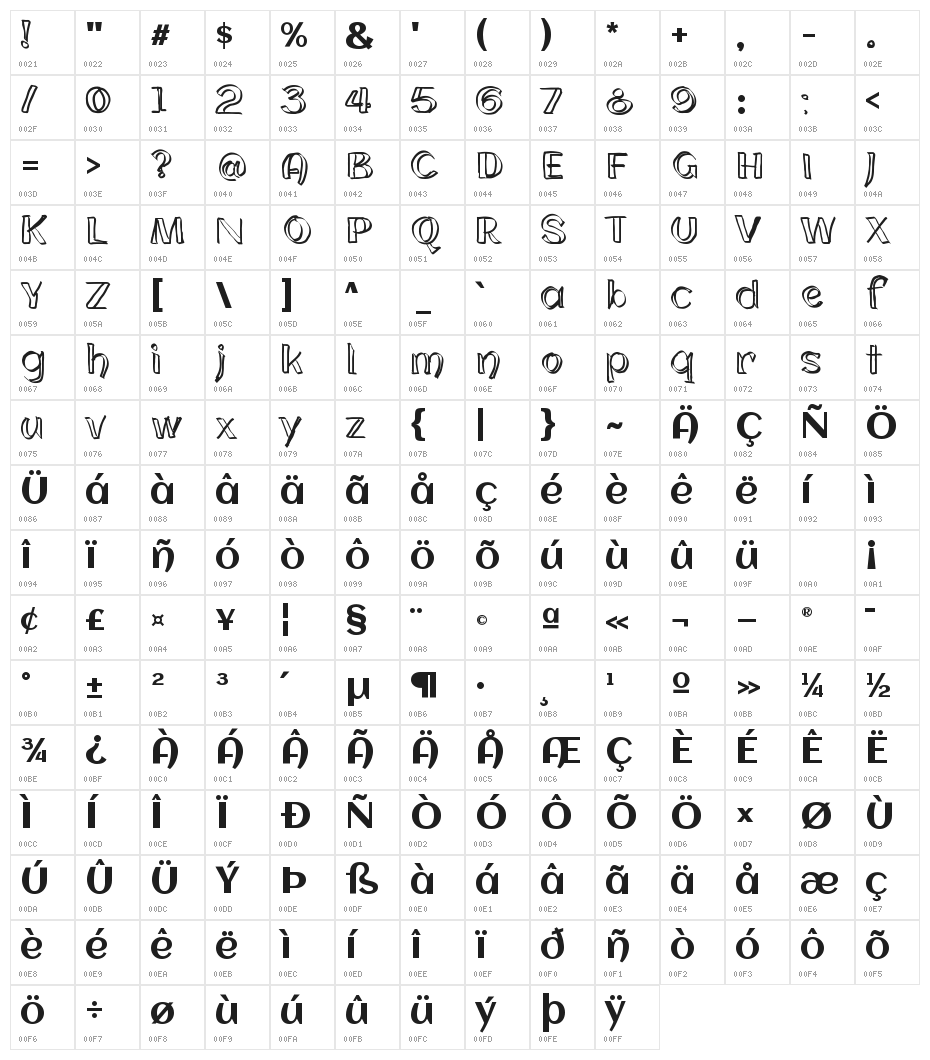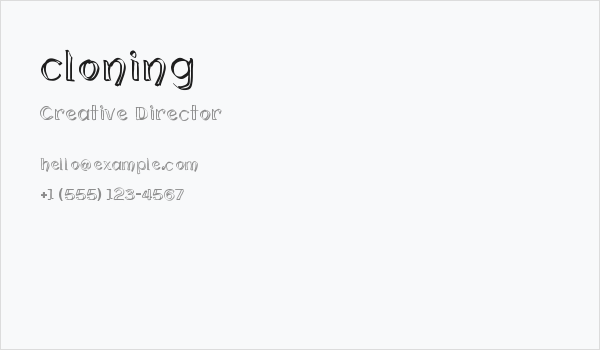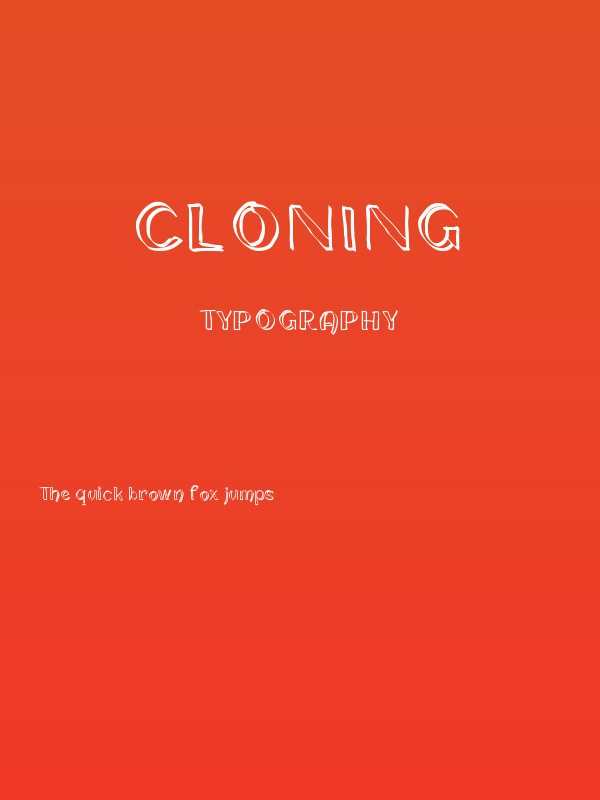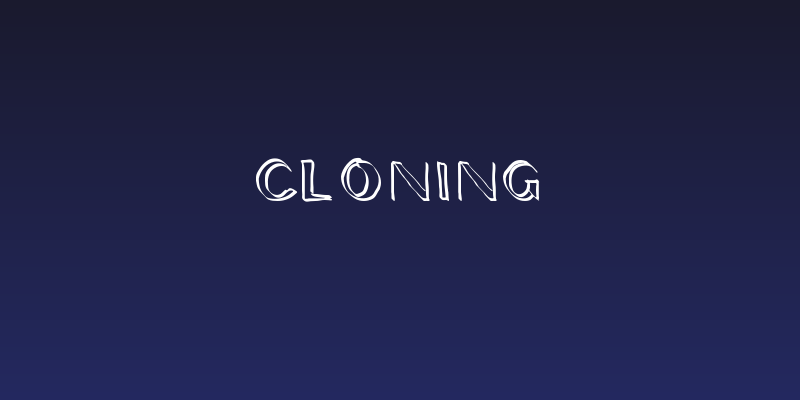
cloning Font
cloning Description
This font features a playful and artistic design, characterized by its hand-drawn appearance. Each letter has a unique, slightly irregular shape, giving it a whimsical and creative feel. The strokes are bold and varied, with some letters having thicker lines and others appearing more slender. This variation in stroke thickness adds a dynamic and lively quality to the font. The characters are well-spaced, ensuring readability while maintaining their quirky charm. The font includes a full set of uppercase and lowercase letters, numbers, and a variety of special characters, making it versatile for different design needs.
| Proposed Projects | Ideal for children's books, creative posters, playful branding, and artistic invitations. |